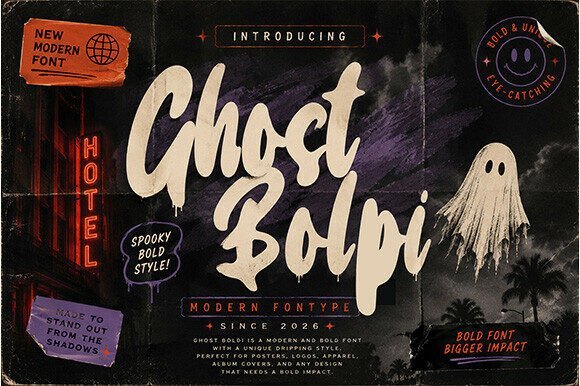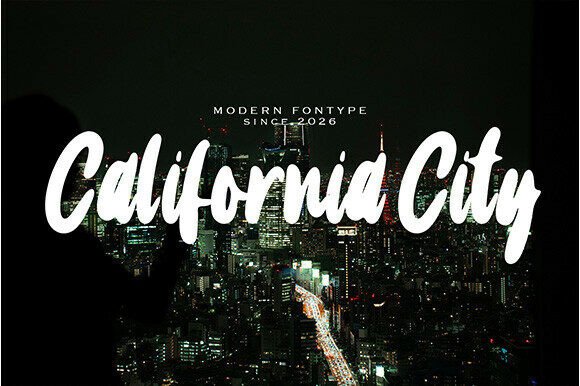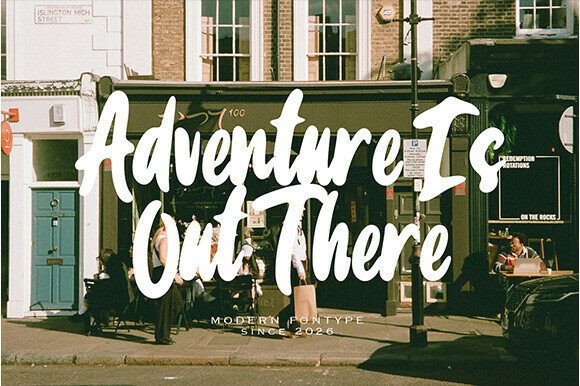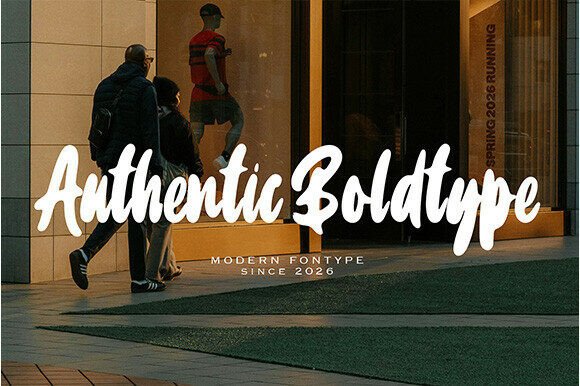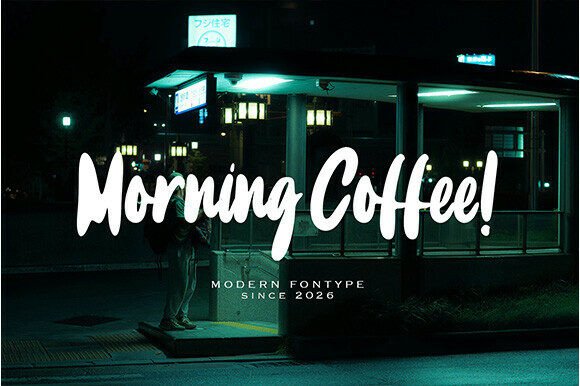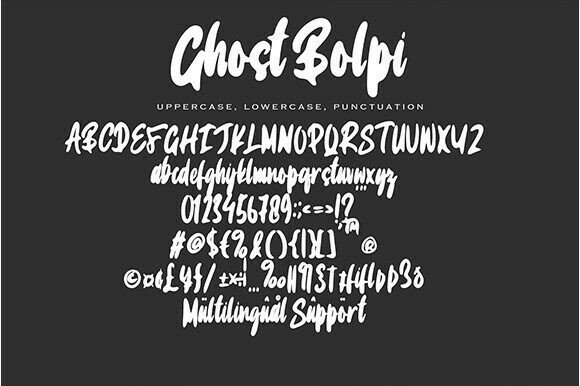
Unleash the Darkness with Ghost Boldi
You know that moment when a design comes together and you can almost feel the energy pulsing through the pixels? That’s what happens when you pair the right font with your project. For designers seeking to make a bold statement, the Ghost Boldi Font is the ultimate game-changer.
This modern display typeface is engineered to deliver maximum visual impact, striking a perfect balance between playful cartoon aesthetics and spooky Halloween vibes. With its heavy, expressive brush-script anatomy and ink-like paint drips, the Ghost Boldi Font is an exceptional match for a wide range of design projects, from streetwear apparel lines to horror comic titles.
What sets Ghost Boldi apart is its ability to deliver a powerful sense of unyielding professional structure and legendary alternative cool to your graphic layouts. Whether you’re a seasoned designer or just starting out, this font is sure to give your titles a distinct, rebellious presence that demands attention.
Ghost Bolpi Font Key Features
- Font Family: Ghost Bolpi
- Unique Characteristic: Ghost Bolpi features a unique blend of modern and mystical elements, with intricate details and subtle texture, making it ideal for creative projects and branding
Ghost Bolpi Font Review
Overall, I’m quite impressed with the Ghost Bolpi Font. Here’s what I like:
- ✨ Unique aesthetic: The font has a distinctive, ghostly quality that makes it perfect for projects that need a touch of mystery and elegance.
- ✨ Versatile: Ghost Bolpi Font works well for both digital and print projects, from web design to magazine layouts.
- ✨ Easy to read: Despite its unusual design, the font is surprisingly legible, making it suitable for body text as well as headings.
- ⚠️ Limited character set: The font’s character set is not as extensive as some other fonts, which may limit its use in certain projects.
- ⚠️ Not suitable for all audiences: The font’s ghostly theme may not be suitable for projects that require a more traditional or conservative tone.
Overall, I’d give the Ghost Bolpi Font 4 out of 5 stars. While it has some limitations, its unique aesthetic and versatility make it a great choice for designers looking to add some visual interest to their projects.
Ghost Bolpi Font Practical Application Guide
Getting the Most Out of Ghost Bolpi Font
To get the most out of the Ghost Bolpi font, experiment with different font sizes, colors, and styles to create a unique look. You can also pair the font with other fonts to create a visually appealing design.
The Ghost Bolpi font is commonly used for creative and artistic projects, such as:
- Typography-based designs
- Infographics and illustrations
- Editorial and magazine designs
Alternatives to Ghost Bolpi Font for Designers
Bebas Neue is a modern sans-serif font that is highly legible and versatile. It is suitable for use in headings and titles where a clean and elegant look is desired. Bebas Neue is a great alternative to Ghost Bolpi Font as it offers a similar feel but with a more modern and sleek design.
Great Vibes is a script font that is perfect for creating a warm and inviting atmosphere. It is ideal for use in titles, quotes, and other decorative text where a touch of elegance is needed. Compared to Ghost Bolpi Font, Great Vibes has a more organic and handwritten feel that can add a unique touch to designs.
Montserrat is a geometric sans-serif font that is highly versatile and suitable for use in a wide range of applications. It is a great alternative to Ghost Bolpi Font as it offers a similar level of sophistication and elegance but with a more modern and urban feel.